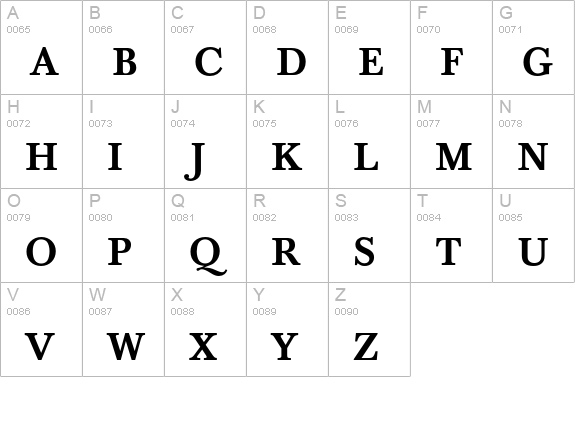
Baskerville T Medium Font Details
Baskerville T Medium is a balanced, medium-weight variant in the Baskerville typeface family \xE2\x80\x94 well suited to sub-headlines, navigation, and balanced editorial work.
Baskerville T Medium is a classic and elegant serif font that exudes sophistication and timelessness. Its balanced and refined design makes it perfect for a wide range of projects, from branding to editorial design. The medium weight strikes the perfect balance between readability and impact, making it ideal for both body text and headings. This versatile font is now available for free download at FontsMarket.com, where you can easily access this premium typeface without any cost. Utilize Baskerville T Medium to add a touch of elegance and professionalism to your designs, whether it's for print or digital media. With its timeless appeal and modern versatility, this font is sure to elevate your projects to the next level.